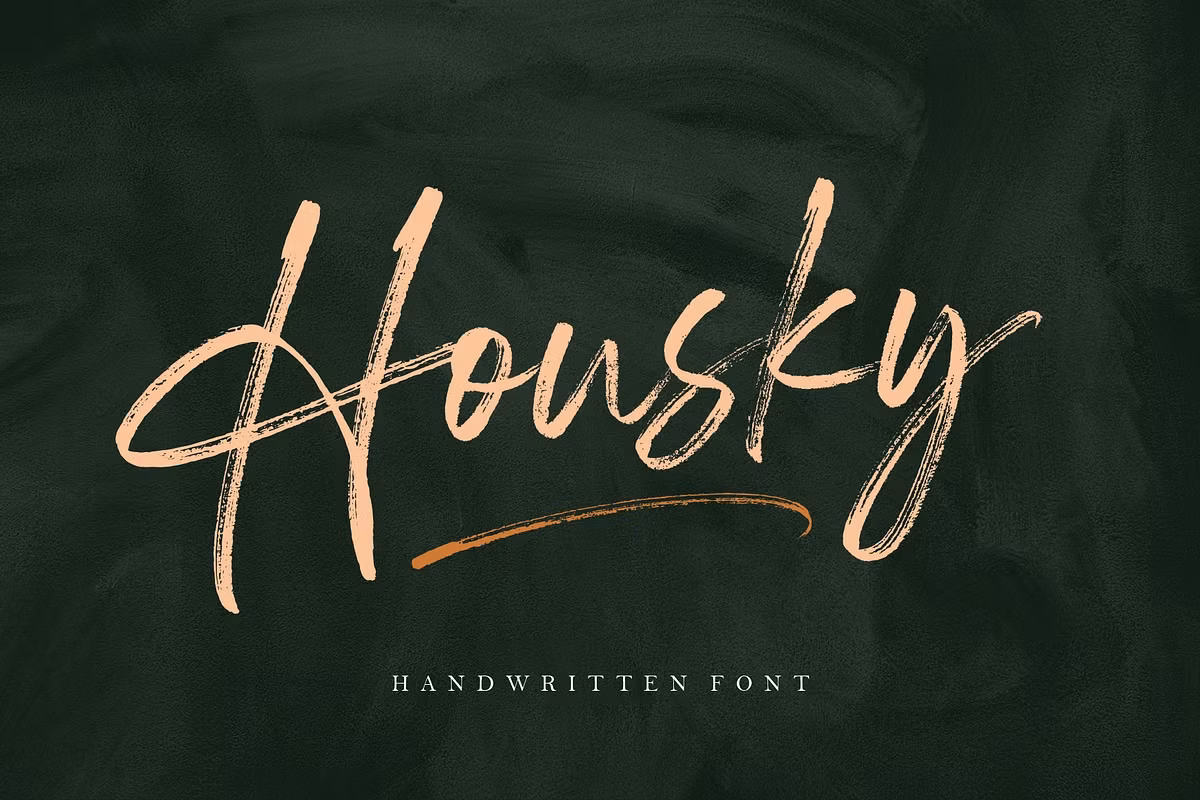
Housky Font Free Download is a modern handwritten typeface that brings a casual, stylish, and personal touch to your designs. With its smooth strokes, natural curves, and slightly edgy flair, Housky is perfect for branding, Instagram quotes, logos, product packaging, and handwritten-style headlines that need personality and authenticity.
Carefully crafted to mimic real handwriting, Housky Font Free Download captures the relaxed elegance of pen-on-paper lettering. It’s great for designers who want to infuse their work with a handcrafted, organic feel without sacrificing professionalism.
Housky pairs well with serif or sans-serif fonts for added contrast and can be used as a signature-style accent or the main feature in your design. Whether you're creating content for lifestyle brands, beauty products, or social media graphics, Housky brings warmth and charm to every project.